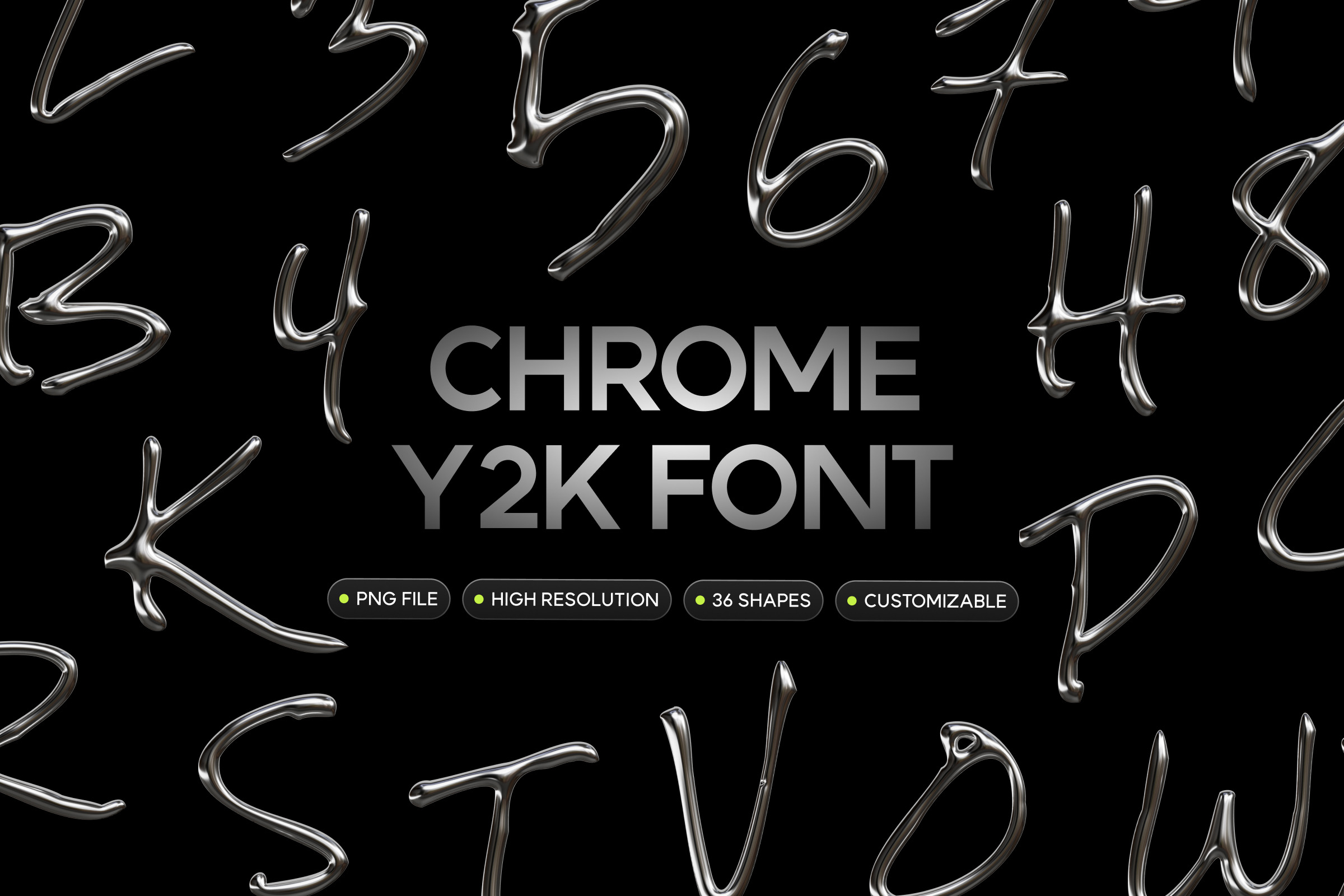
Chrome Y2K Font
Chrome Y2K Font Revive the Y2K Era with the Stunning Chrome Y2K Font
Step back into the vibrant and futuristic world of the Y2K era with our Chrome Y2K Font. Perfect for graphic designers, typographers, and creatives seeking to infuse their projects with a retro-futuristic vibe, this font features sleek chrome textures and bold, innovative designs. Ideal for branding, digital art, web design, and social media graphics, the Chrome Y2K Font will add a dynamic and edgy touch to your work.